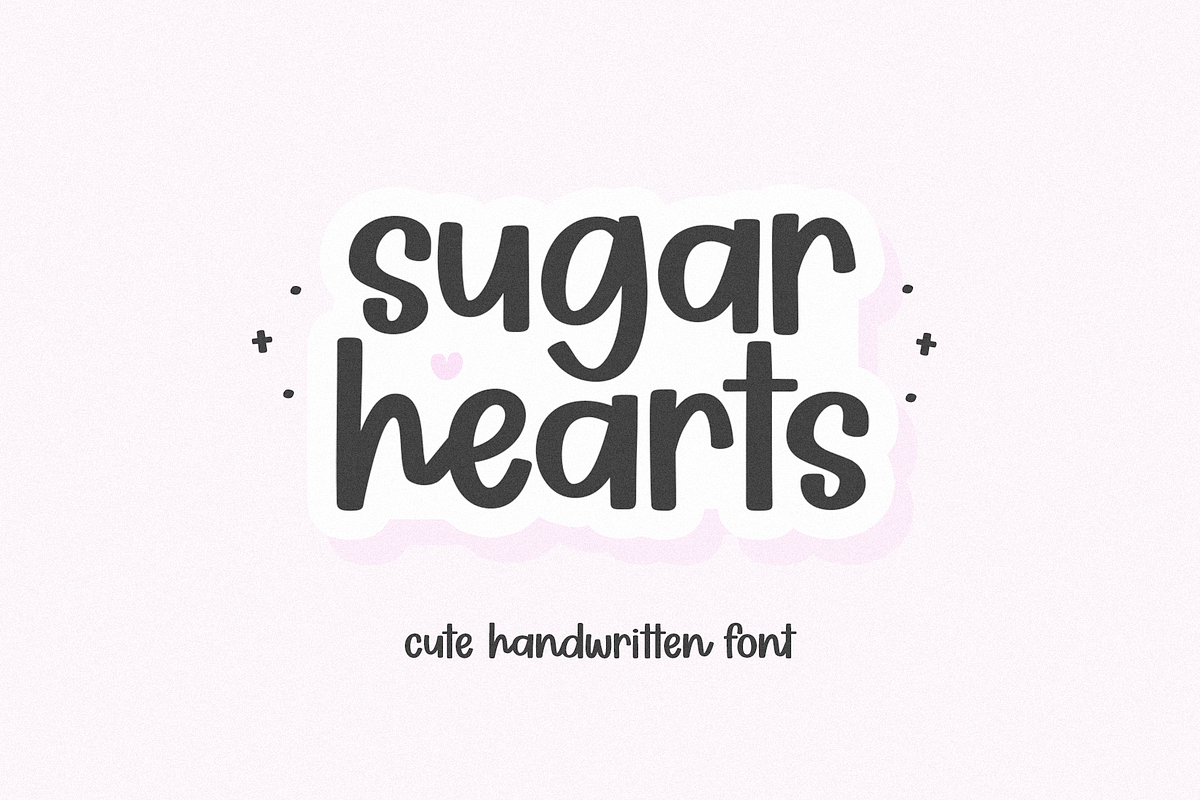
You must purchase this font for commercial use. However, you can download Sugar Hearts | Cute Handwritten Font Free Download for testing purposes. Sugar Hearts is an adorable and playful handwritten font that brings a fun and charming vibe to any design. Perfect for creating sweet logos, invitations, greeting cards, social media posts, and children's designs, this font adds a personal touch and whimsical appeal.
With its soft curves, friendly letterforms, and playful style, Sugar Hearts is ideal for projects that require a cute, lighthearted feel. Whether you're designing a birthday invitation, a logo for a kids’ brand, or simply adding a sweet message to your project, this font will make your text stand out in a fun, inviting way.